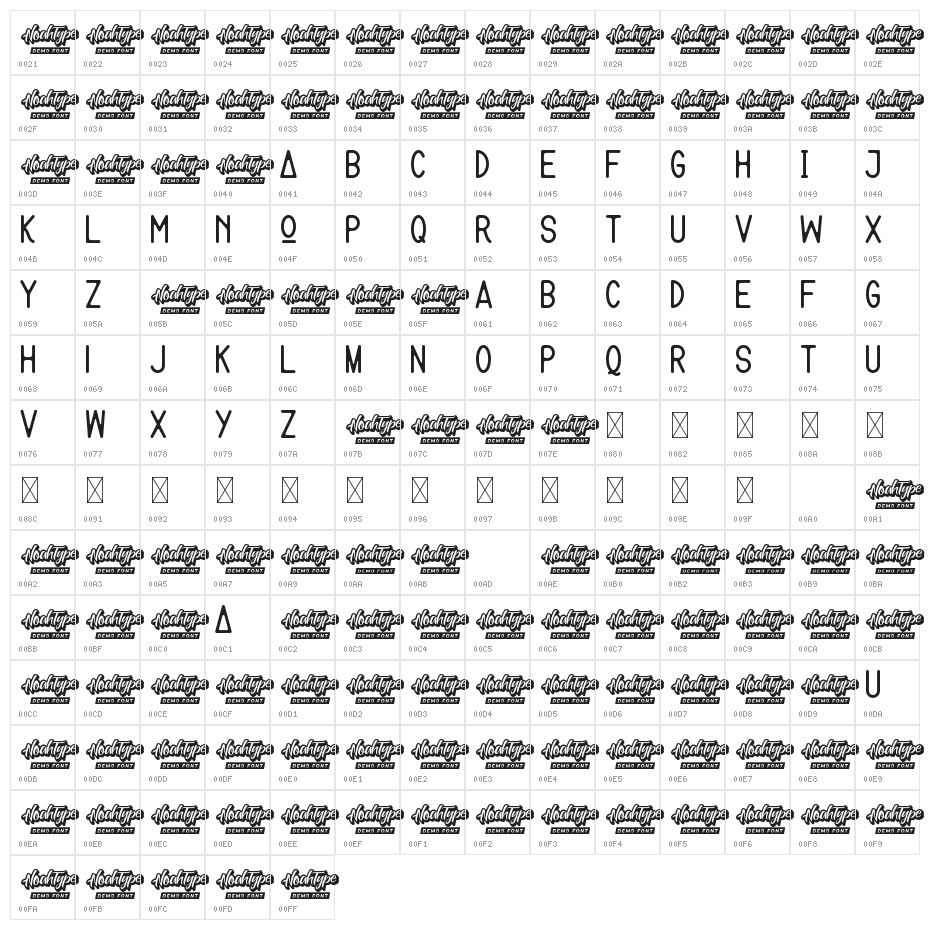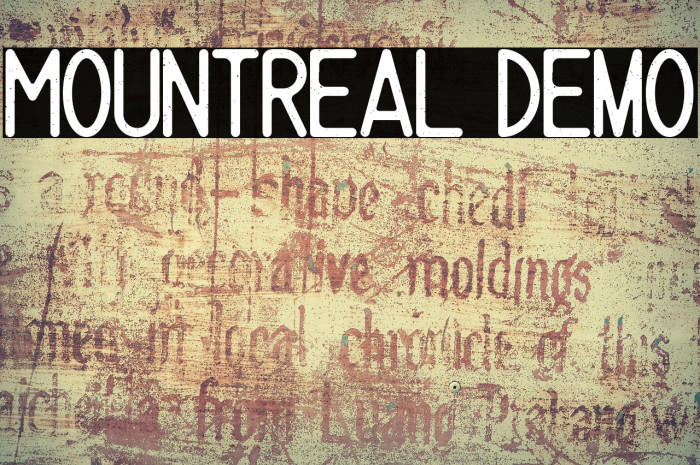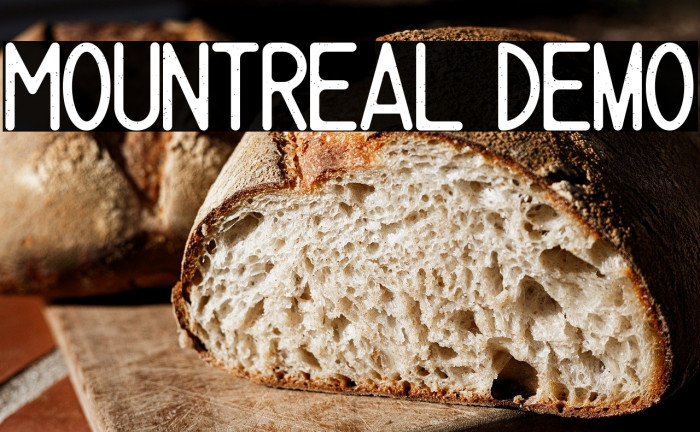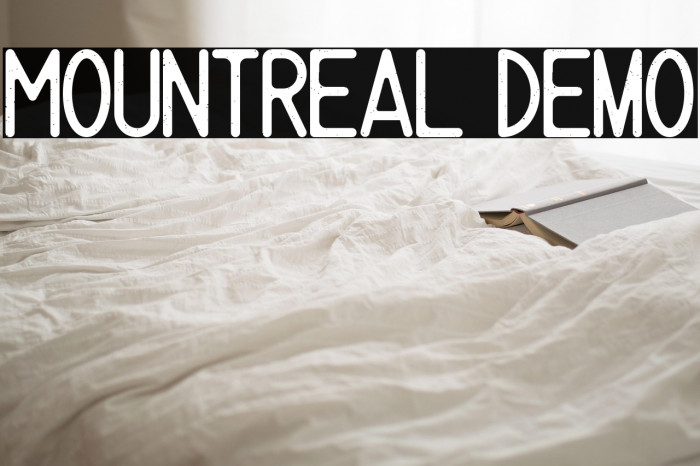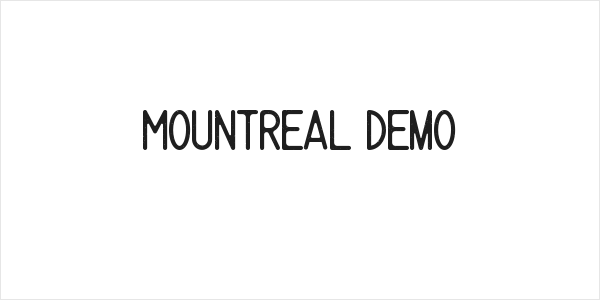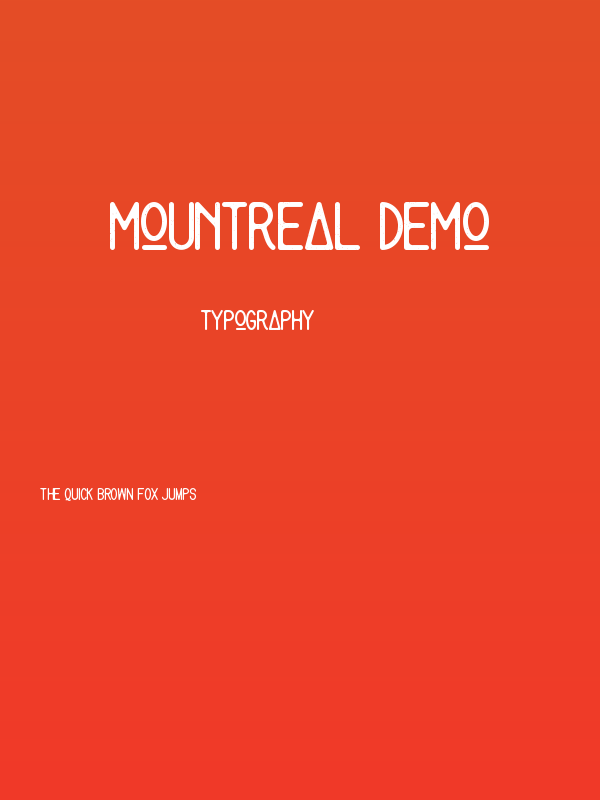
Mountreal Demo Font
Mountreal Demo Description
This font features a bold, rounded style with a playful and slightly retro aesthetic. The uppercase letters are uniform in height, with a consistent stroke width that gives a clean and modern look. The lowercase letters maintain the same playful style, with rounded edges and a slightly condensed form. The numbers are clear and easy to read, matching the overall style of the alphabet. Special characters are included, maintaining the same bold and rounded characteristics. This font is ideal for projects that require a fun and engaging appearance, such as children's books, posters, or branding for creative industries.
| Overall Style | Retro, Playful |
| Proposed Projects | Ideal for children's books, posters, and creative branding. |